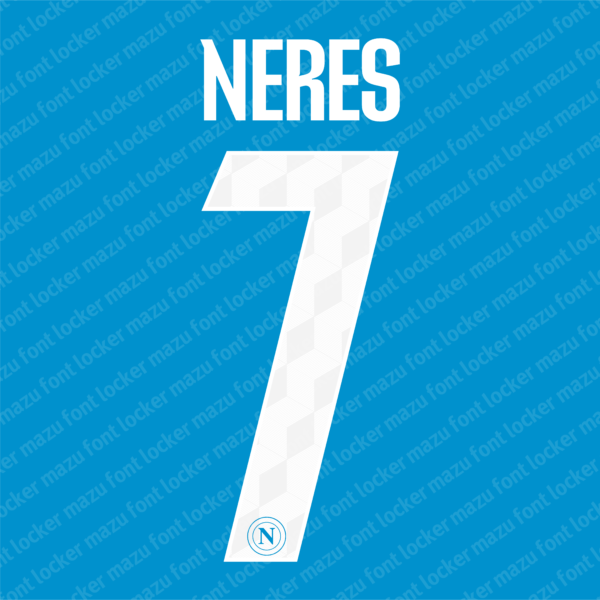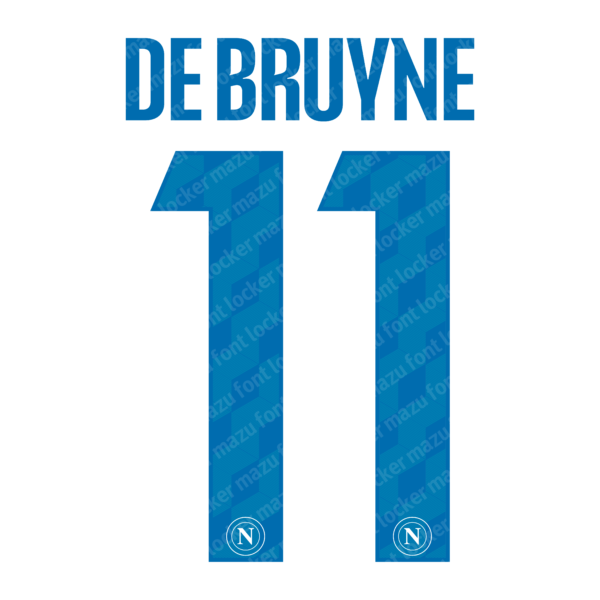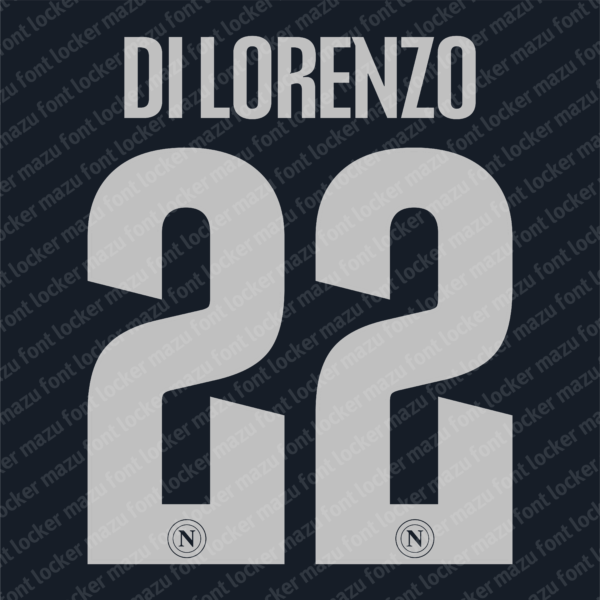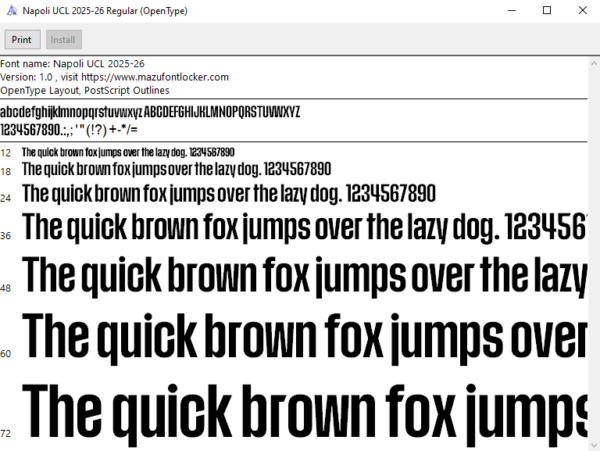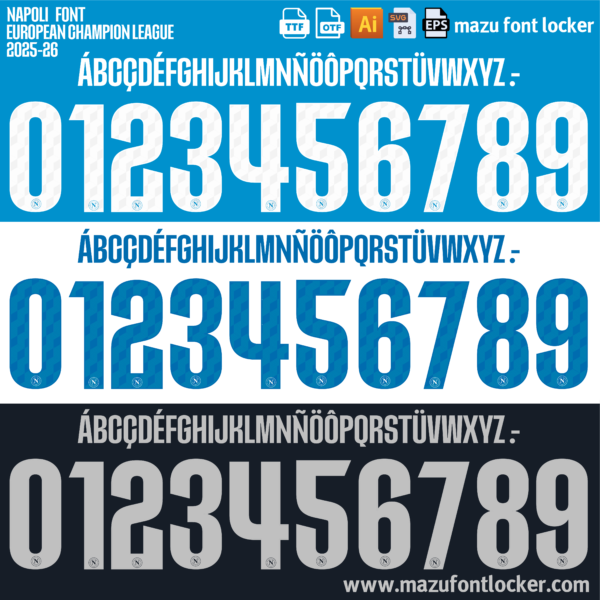
Napoli 2025-26 Font Vector – Legendary Southern Passion
Napoli 2025-26 Font is a high-quality football jersey font vector designed to replicate the official lettering and numbering style used during the 2025-26 season. This Napoli 2025-26 font is perfect for designers, football fans, and creators who want accurate and professional jersey customisation.
Inspired by the official kit of Napoli, this Napoli 2025-26 font delivers a clean and authentic match-day appearance. Every letter and number has been carefully recreated to match the real jersey design, ensuring your projects look realistic and professional.
Napoli 2025-26 Font Vector – Authentic Jersey Lettering
Napoli 2025-26 Font is a high-quality football jersey font vector created to replicate the official lettering and numbering style used during the iconic 2025-26 Season. Perfect for designers, football fans, and jersey customisation projects, this font set delivers an authentic and professional match-day appearance.
Inspired by the original Napoli 2025-26 team kit, every letter and number has been carefully recreated to ensure accurate retro styling for both digital and print projects.
• Authentic 2025-26 Napoli jersey lettering style
The authentic lettering style helps recreate the classic look of the Napoli 2025-26 kit with professional accuracy.
Unlike generic jersey fonts, this set is designed with a strong focus on authenticity and accuracy. Every detail is based on the original match lettering style used during the 2025-26 season, helping designers and collectors create realistic football shirt designs.
This Napoli 2025-26 font vector set is designed for authentic football jersey customization and works perfectly for retro football projects, collector designs, and professional sportswear artwork.